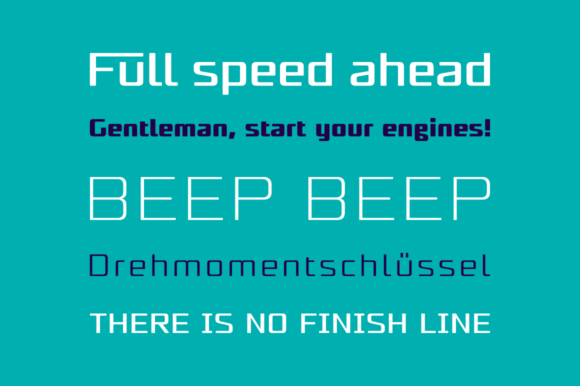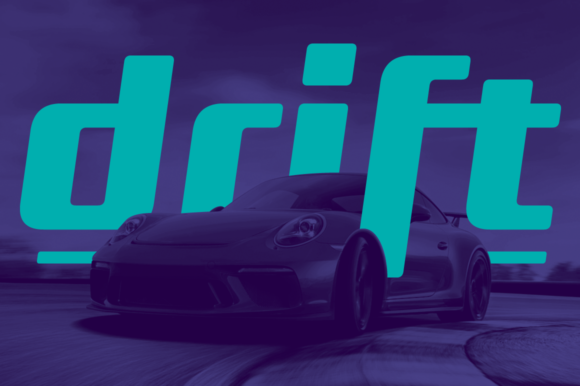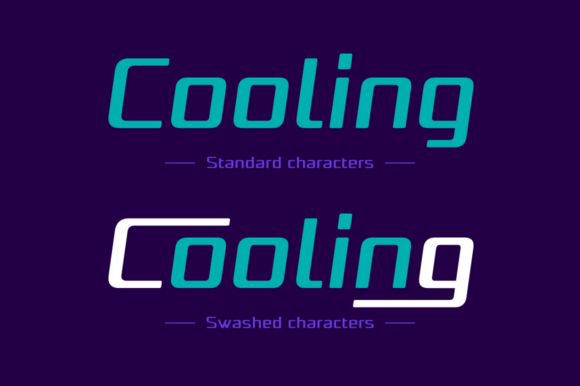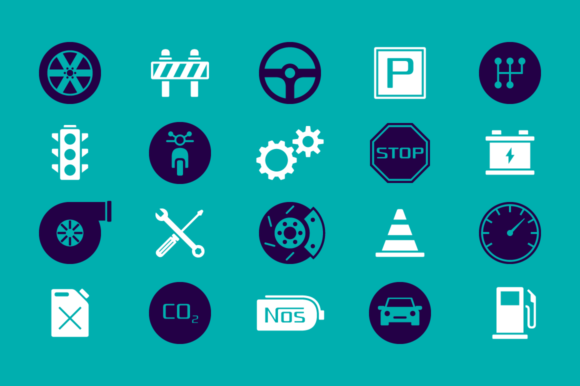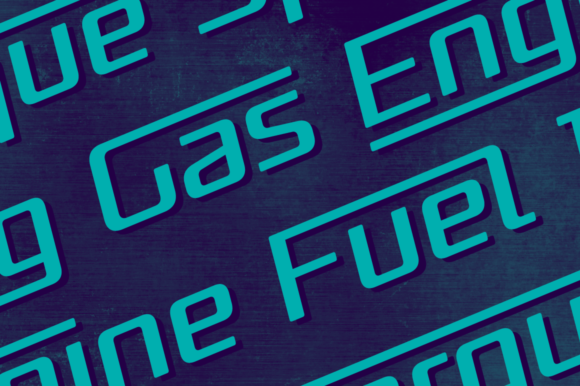
Introduction to Naftera Family Font
Naftera font family has been designed for Graviton Font Foundry by Pablo Balcells in 2019.
It is a mechanical, geometric sans serif typeface with display swashed characters and soft rounded endings that provide a trong but refined aesthetic Naftera has been conceived to be most suitable for logos, headlines and display design pieces as well as short length text blocks.